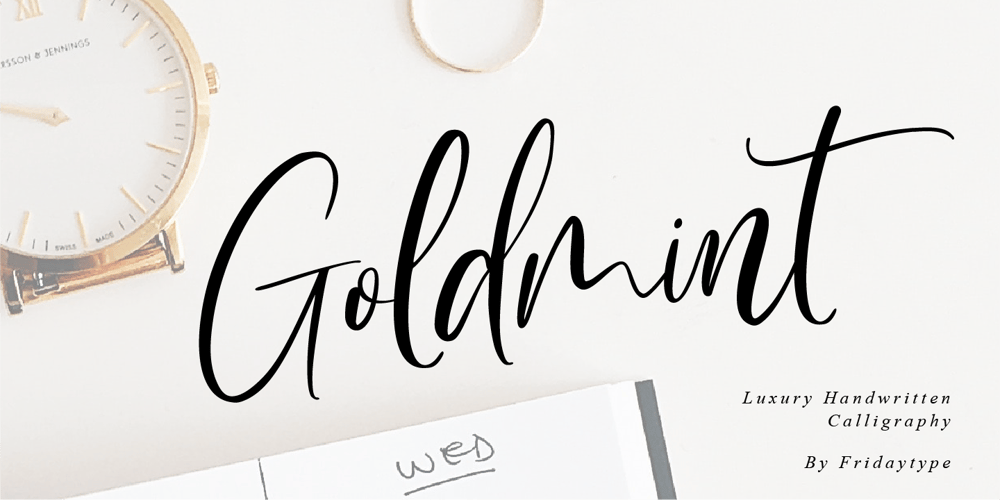
Goldmint
Goldmint font
Goldmint Font Family was designed by Farida Kurniawan and published by Fridaytype. Goldmint contains 1 styles and family package options. Golmint – Luxury Handwritten CalligraphyGolmint is a stylish modern calligraphy font with a calligraphy flair. This font a luxurious calligraphy font perfect for elegant logos, wedding stationery, photography branding, modern websites, and more!- Uppercase & Lowercase- Numbers & punctuation- Multilingual- Ligature- SwashThanks and have a wonderful dayFridaytype